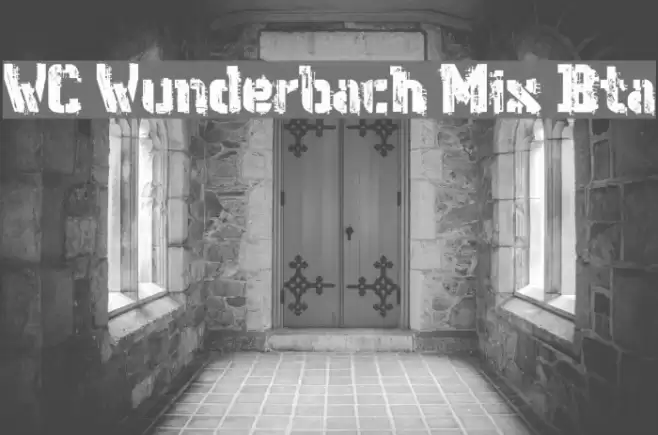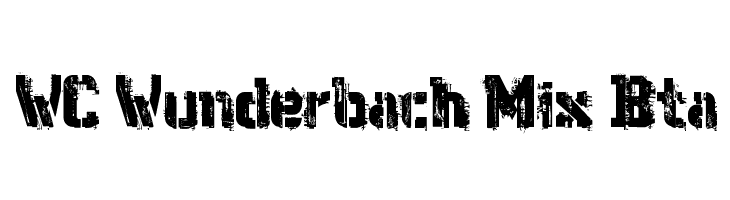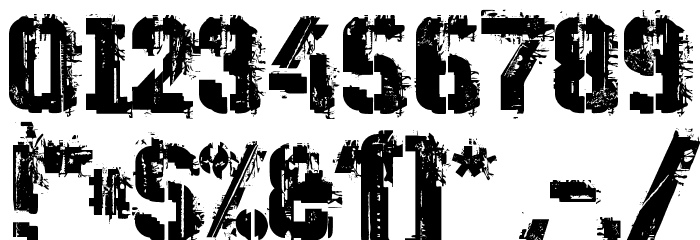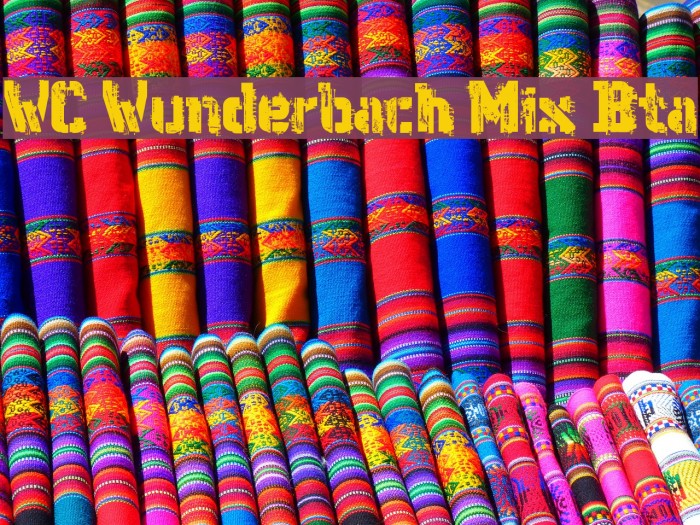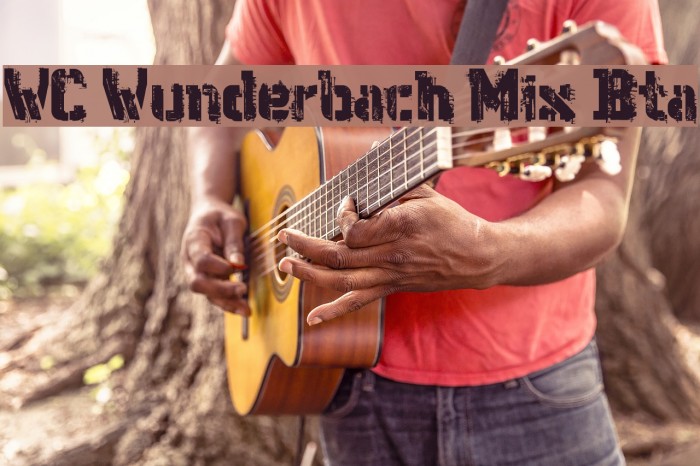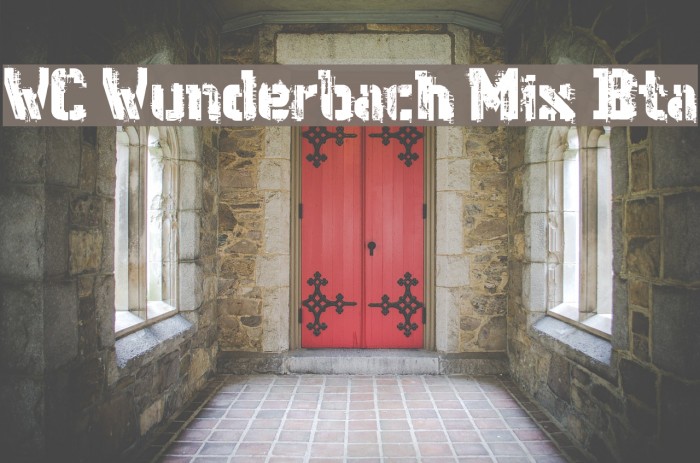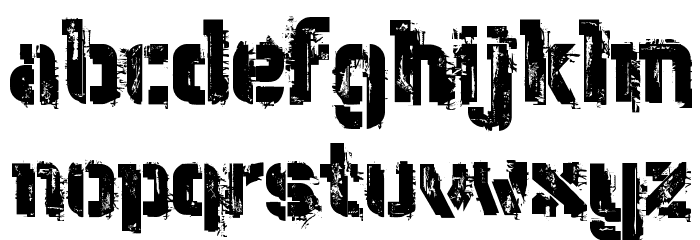
WC Wunderbach Mix Bta Font
WC Wunderbach Mix Bta Description
This font features a bold, distressed style with a grunge aesthetic. The characters are heavily textured, giving them a rough, worn appearance that suggests a sense of age and ruggedness. The uppercase and lowercase letters maintain a consistent width, while the numbers and special characters follow the same distressed pattern. The overall design is striking and eye-catching, making it suitable for projects that require a strong visual impact. The irregular edges and varying stroke thicknesses add to its unique character, making it ideal for creative and unconventional designs.
A bold, distressed font with a grunge aesthetic and textured appearance from Uncategorized fonts.
- Proposed Projects: Ideal for album covers, posters, streetwear branding, and edgy graphic designs.
- Overall Style: Grunge, Distressed